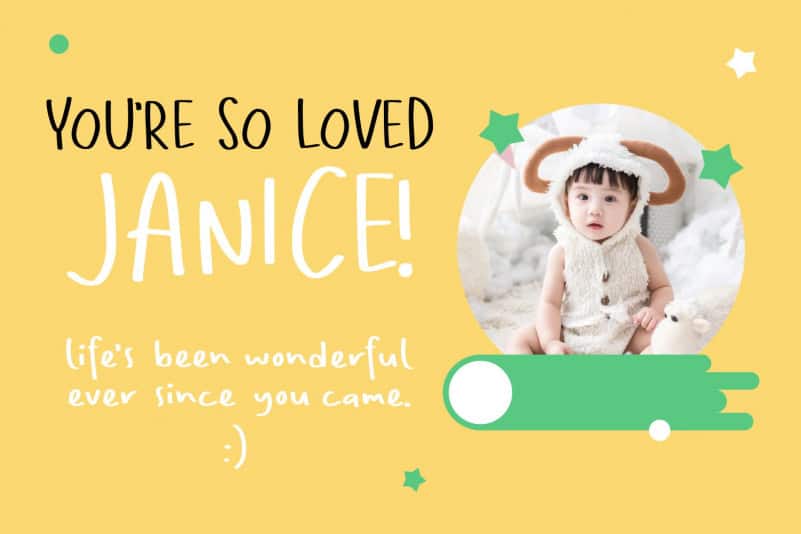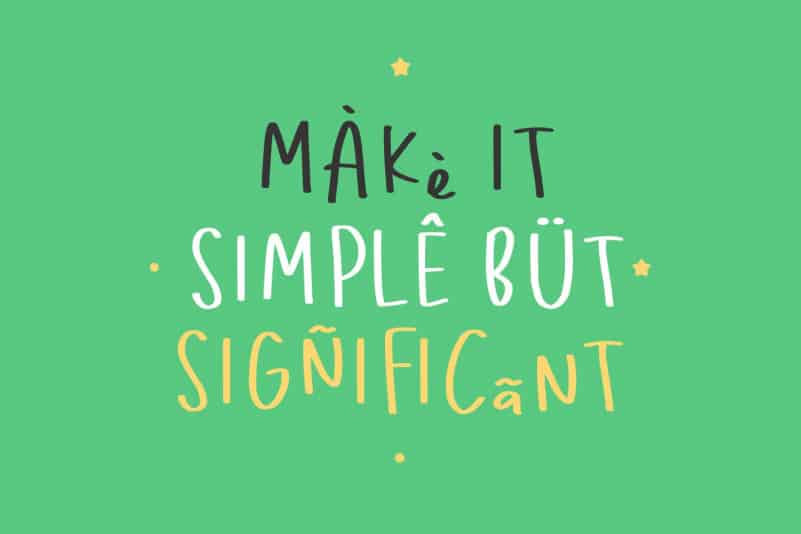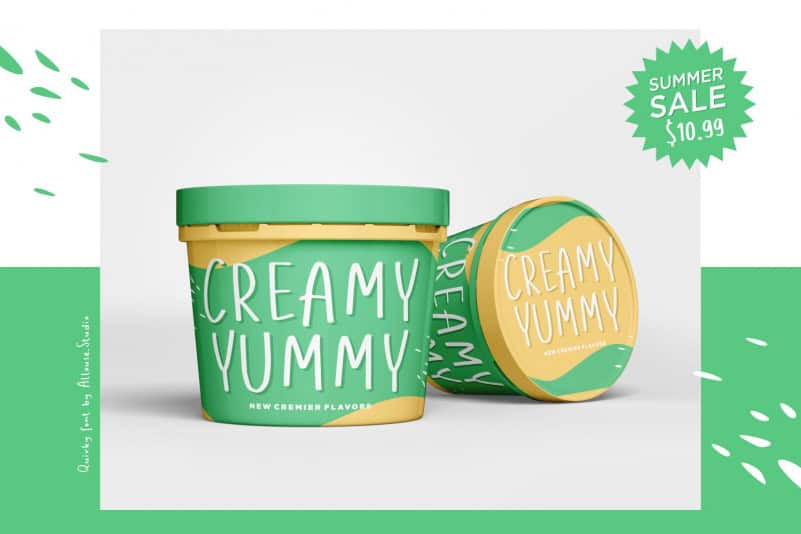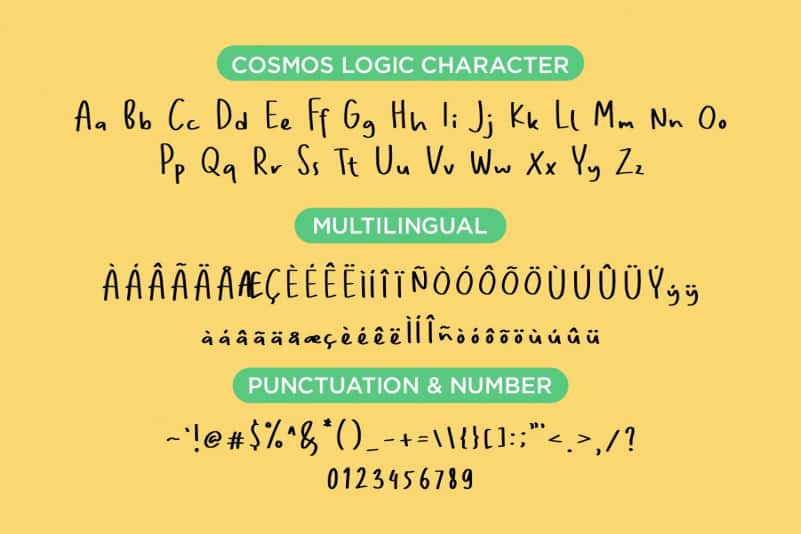
Cosmos Logic Display Font
Cosmos Logic Display Font is a Quirky typeface. Cosmos Logic Display Font is perfect for product packaging, branding project, megazine, social media, wedding, or just used to express words above the background.